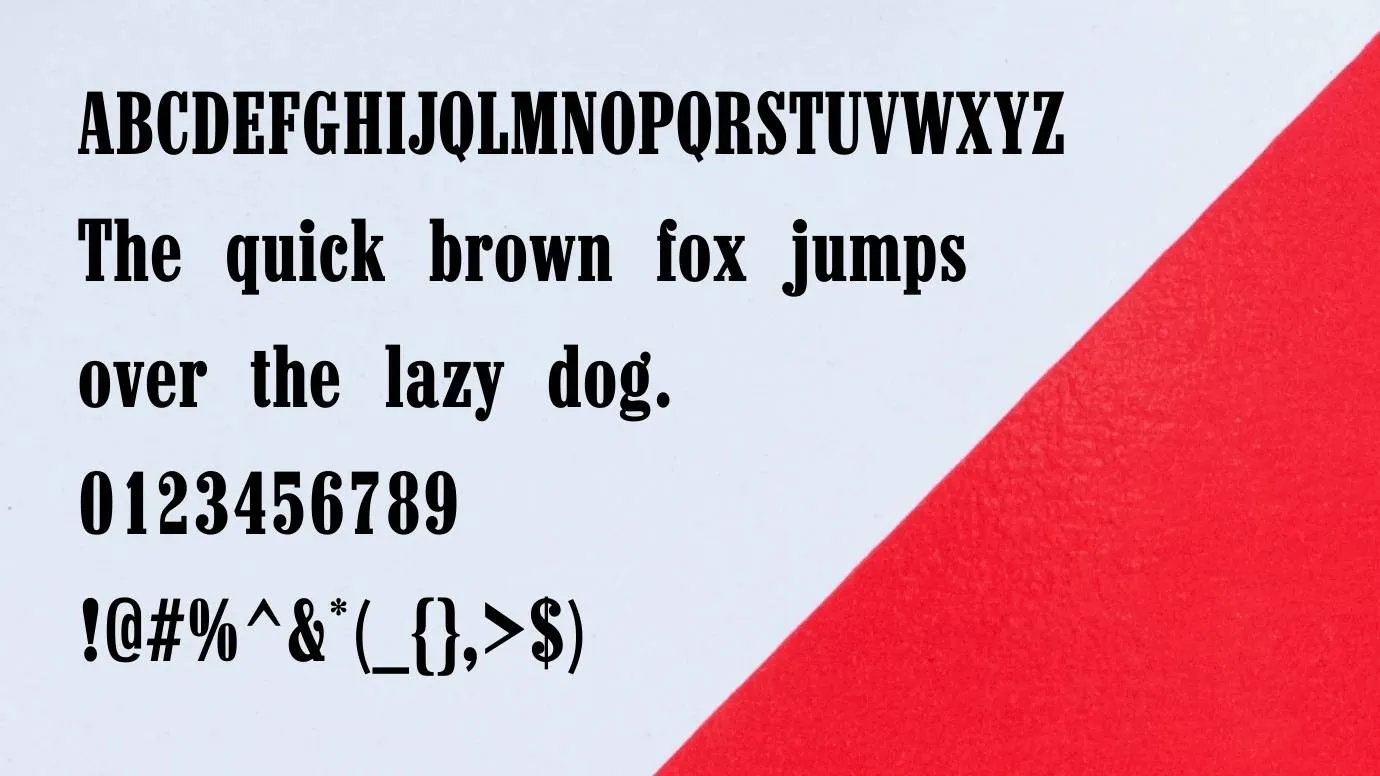
Marlboro font is a very interesting and stylish font. It belongs to the category of slab serif typefaces. A well-known American brand of cigarette known as Marlboro used this typeface in their logo. The brand is very popular all over the world. Due to the popularity of the Marlboro cigarette brand, this typeface is very popular among people. Its uniqueness is its squarish characters. The word Marlboro came from the London street great Marlborough.
Creator of Marlboro Font
It was designed by very talented and famous graphics designer Dieter Steffmann. This beautiful typeface was published by the Master fonts.
- Marlboro regular
- Marlboro Bold
- Marlboro Italic
- Marlboro light
View of Marlboro Font
| Name | Marlboro Font |
| Style | Slab Serif |
| Designer | Dieter Steffmann |
| Foundry | Master fonts |
What type of font is Marlboro?
Marlboro is a very famous font. it belongs to the slab serif typefaces. it is very popular for making logos and designs.
Who designed Marlboro Font?
A famous designer Dieter Steffmann designed this font. And later it was officially published by the famous fondry master fonts.
What font is closest to Marlboro Font?
Closest fon to marlboro font is Canberra font it is also a famous font. it is also a free alternative of the Marlboro.